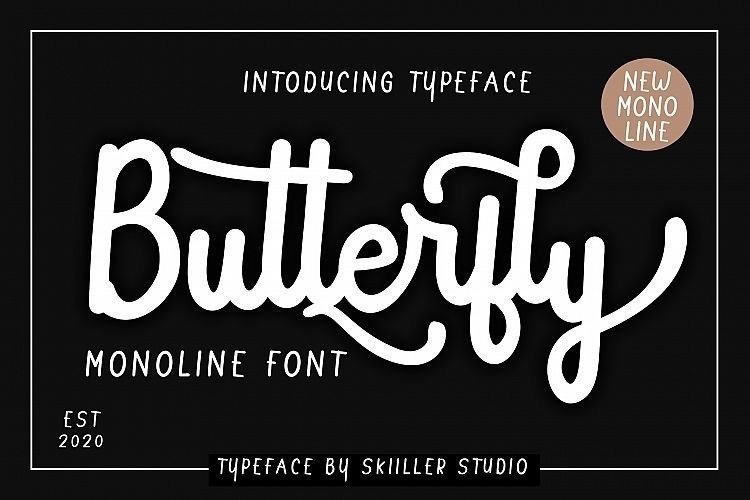
Butterfly Monoline Font
Hello friend. Butterfly Font is a new Monoline Typeface Font. This font has a really nice flow so you use it in a large text if you want to give them a touch of personality. It can be used on social media content, for branding or packaging.
It’s a monoline type font combined with a script so it looks elegant, there are opentype features in it, suitable to support a variety of designs and your business.